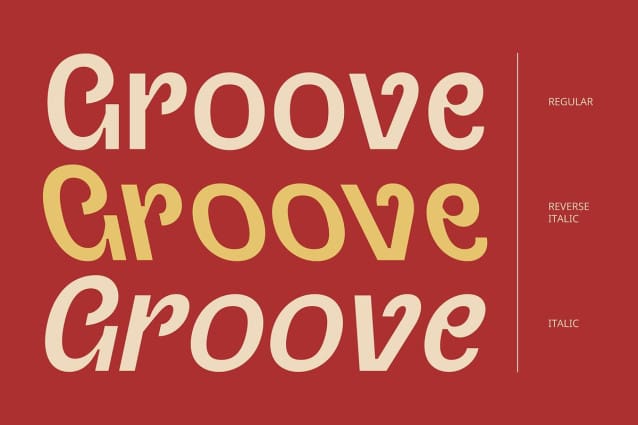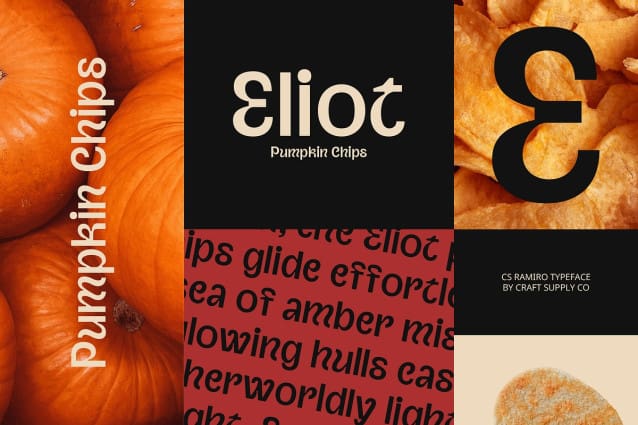
CS Ramiro Font
CS Ramiro Font is a display sans serif font that draws its inspiration from the timeless elegance of the Renaissance era. Featuring bold, thick letterforms paired with classic proportions, the design blends historical sophistication with modern strength. This unique combination results in a striking visual that bridges the gap between vintage charm and contemporary boldness, making it a versatile choice for a wide range of creative projects.
Timeless Design with Modern Appeal The font’s robust letterforms and traditional proportions create a perfect balance of strength and elegance, providing a sense of dignity and timeless appeal. Whether used for branding, editorial layouts, or promotional materials, CS Ramiro brings a sense of gravitas and importance to any design. Its classic Renaissance roots evoke a sense of nostalgia, making it ideal for projects that look to combine old-world sophistication with a modern twist.
Perfect for Vintage and Retro-Themed Projects CS Ramiro excels in vintage-themed designs, evoking the grandeur of the past while embracing contemporary design trends. Its bold, thick strokes and historical influence make it an excellent choice for projects with a retro or classical aesthetic. Whether you’re designing vintage posters, retro branding, or event invitations with a historical flair, this font brings a sense of depth and sophistication to your design.